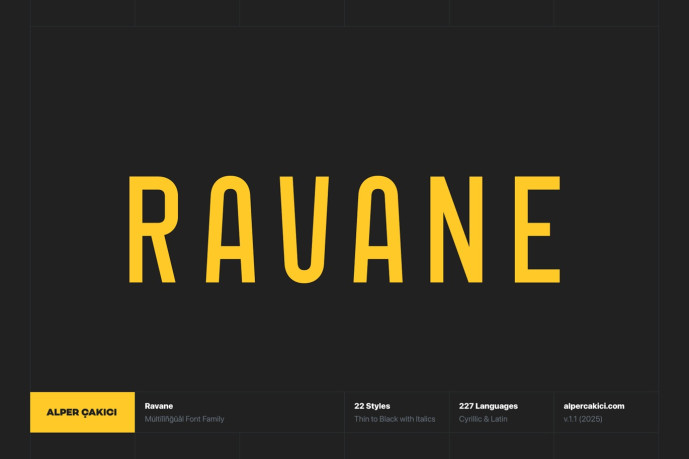
Ravane – Rounded Sans-Serif Font Family
Ravane is a contemporary rounded sans serif typeface family crafted for clarity, warmth, and versatility. With 11 carefully tuned weights and 22 total fonts, it offers designers complete control — from delicate Thin to commanding UltraHeavy.
Combining geometric precision with soft, approachable curves, Ravane balances professionalism with personality. Its clean geometry, smooth terminals, and refined proportions make it ideal for both print and screen — a dependable workhorse for global communication.
Supporting 123 languages across Latin and Cyrillic scripts, Ravane ensures your message reaches audiences worldwide. Its multilingual coverage, elegant readability, and timeless minimalism make it a must-have font family for designers seeking sophistication and modern simplicity.